Great graphic design is powered by great font selection. But picking great fonts is a challenge for most people. Luckily, Canva has made adding great fonts to your designs much easier. In this tutorial, our team of design experts will cover the best chalk fonts in Canva.
What are Chalk Fonts?
Chalk fonts, often referred to as chalkboard or chalk-inspired fonts, are designed to mimic the appearance of handwritten or chalk-drawn text on a chalkboard or blackboard. They have unique characteristics that distinguish them from other typefaces:
- Handwritten Appearance: Chalk fonts typically have an informal, handwritten look, as if they were created with actual chalk.
- Irregular Stroke Widths: The strokes in chalk fonts often vary in width, creating an imperfect and organic feel. This mimics the uneven lines of actual chalk writing.
- Texture: Chalk fonts may incorporate subtle texture or distressing to simulate the grainy appearance of chalk on a surface.
- Chalk Dust: Some chalk fonts include chalk dust or speckles around the letterforms, adding authenticity to the chalkboard effect.
- Loose Kerning: Kerning (letter spacing) in chalk fonts is often loose, contributing to the informal and handwritten look.
- Decorative Elements: Chalk fonts can feature decorative elements like swirls, curls, and flourishes, enhancing their playful and artistic character.
- Doodles and Illustrations: Some chalk fonts may include chalk-style doodles and illustrations to complement the text.
Best Canva Chalk Fonts
1. Authenia
Authenia is a script font that is characterized by its flowing and elegant appearance, resembling traditional calligraphy. It has a unique and sophisticated style, with curved letterforms and ornate flourishes that add a sense of refinement and grace to the text. Authenia is ideal for designs that require a sense of elegance and sophistication, such as wedding invitations, certificates, or other formal documents.
2. Kent Printed
Kent Printed is a font that simulates the look of vintage letterpress printing. It captures the imperfect, textured, and slightly worn-out appearance of ink on paper. The letters have rough edges and visible ink marks, adding a sense of nostalgia and authenticity. Kent Printed is commonly used in designs that aim to evoke a vintage or retro vibe.
3. Londria Sketch
Londrina Sketch is a hand-drawn font that is characterized by its playful and informal appearance. It has a unique and distinctive style, with irregular letterforms and a hand-drawn influence that give it a friendly and approachable feel. Londrina Sketch is well-suited for designs that require a sense of creativity and informality, such as invitations, greeting cards, or social media graphics.
4. Cabin Sketch
Cabin Sketch is a font with a hand-drawn look, reminiscent of sketches or doodles. It’s informal and playful, great for creative or casual designs.
5. Villagers Grunge
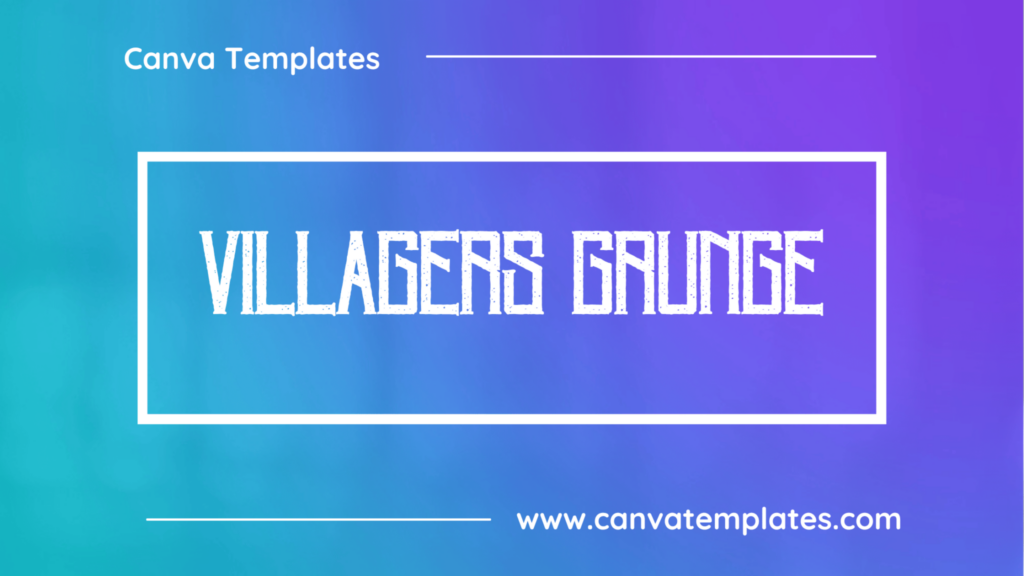
Villagers Grunge is a rough, weathered font with an uneven texture and a distressed, vintage look.
6. Sprite Graffiti
Sprite Graffiti is a display font that is characterized by its bold and urban appearance. It has a unique and distinctive style, with thick and uneven letterforms that resemble the style of graffiti art. Sprite Graffiti is ideal for designs that require a sense of edginess and rebellion, such as streetwear logos, event posters, or album covers.
7. Greenth Grunge
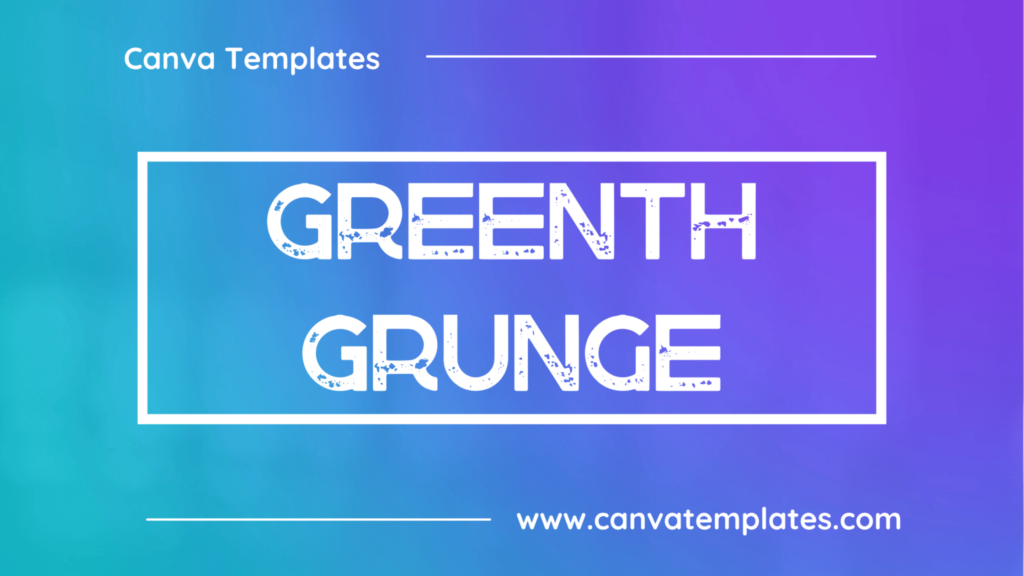
Greenth Grunge is a grungy font, with a distressed, handwritten look that gives it a raw, organic feel.
8. Pinata Marks Rough Black
Pinata Marks Rough Black is a bold and textured display font with a hand-painted aesthetic. It appears as if the letters were created with thick brush strokes, leaving visible brush marks and a textured surface. This font has a playful and artistic vibe, making it suitable for eye-catching headlines, posters, or designs that require a handmade touch.
9. Kompot Display Outline
Kompot Display Outline is a unique sans-serif font that features a hand-drawn style with a rough and uneven texture. The letters are bold and thick, with rounded edges and wide spacing. The outline version of the font creates a unique, vintage look that is perfect for a variety of design projects, including posters, logos, and branding materials.
10. Heretical Texture
Heretical Texture is a font that has a rough and edgy texture, giving it a grungy and rebellious look. It appears as if the letters were stamped onto the page, creating an impression of a raw, handmade feel. The letters have a slightly uneven texture, with various distress marks and scratches, making it perfect for designs that require a distressed or worn look.